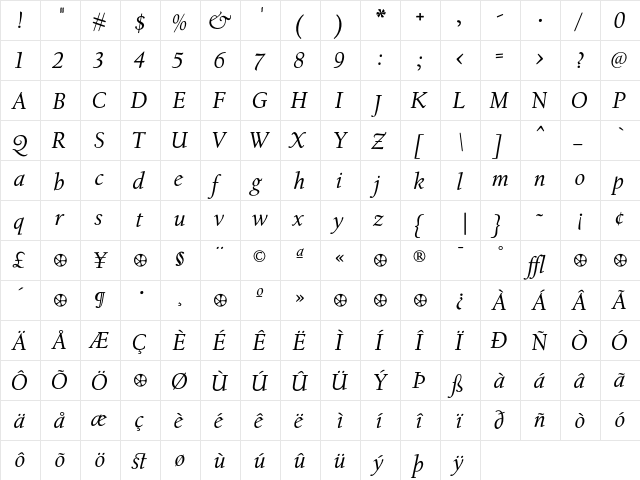
CalifornianText Italic
Design Context for CalifornianText Typeface
CalifornianText is a composed and adaptable typeface that performs quietly and consistently across a wide range of design contexts. Its italic angle brings a sense of urgency and motion to the letterforms.
Pro Tip: Try CalifornianText for annotation and caption copy alongside an upright companion — the contrast in angle creates a dynamic but ordered typographic system.